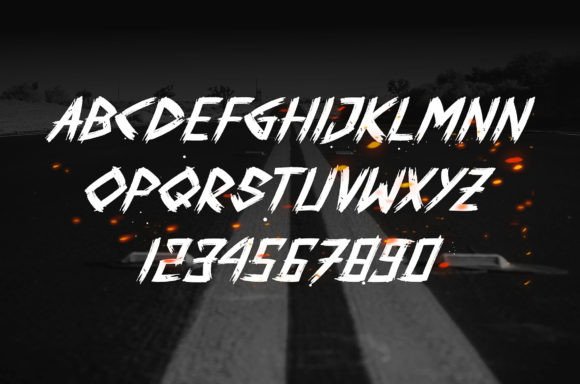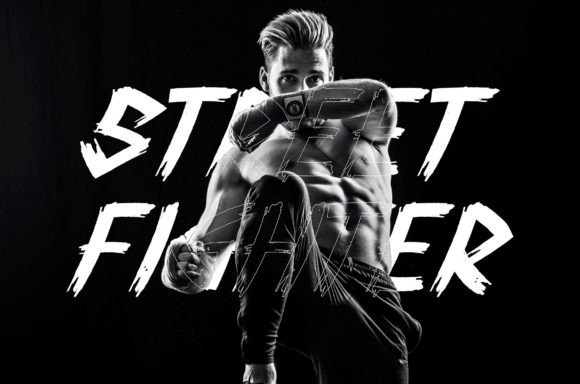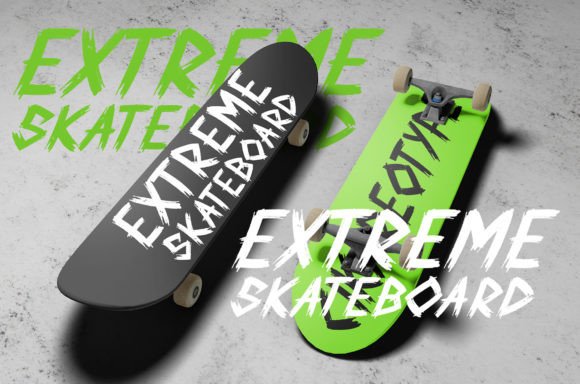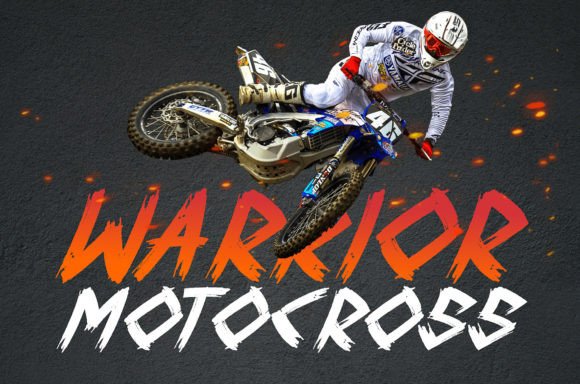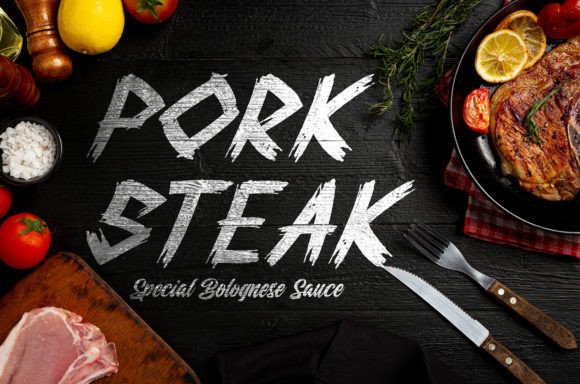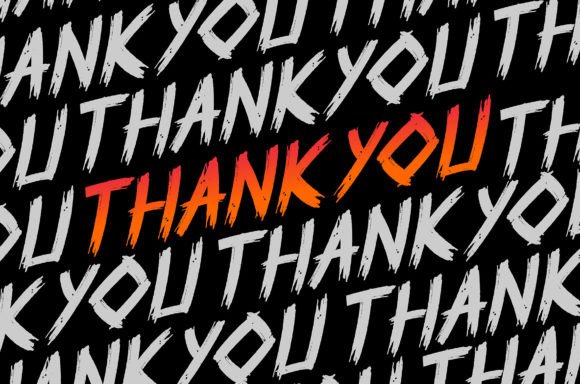
The Perfect Brush Stroke: Elevate Your Designs with the After Brush Font
Do you ever find yourself staring at a blank canvas, waiting for the perfect font to bring your idea to life? We’ve all been there. The struggle is real, especially when trying to convey a sense of creativity and style. That’s where the After Brush Font comes in – a modern and sleek brush display font designed to elevate any creation.
This incredible font is more than just a pretty face; it’s a versatile tool that can be used to convey a wide range of emotions and moods. Whether you’re designing a logo, a brochure, or a social media post, the After Brush Font has the potential to take your design to the next level. Its unique brush strokes and modern aesthetic make it an invaluable addition to any designer’s library.
After Brush Font Key Features
- Unique Characteristics: Hand-drawn, brush-style font with organic, natural feel and subtle texture
Designer Review: After Brush Font
After using the After Brush Font, I have to say it’s a unique addition to any designer’s toolkit. Here’s what I think:
- Character customization: The font allows for a high degree of customization, from weight to ligature options, making it suitable for various design applications.
- Expressive feel: The font’s brush-like characteristics give it a dynamic, expressive feel that’s perfect for creative projects.
- Legibility: Despite its unique style, the font remains legible, making it a great choice for body text or titles.
Limitsations ⚠️
- Size limitations: At larger font sizes, the brush strokes can become pixelated and lose their charm.
- Lack of italics: The font doesn’t have an italic version, which might be a limitation for designers who rely on italics for emphasis.
Overall, I think After Brush Font is a great choice for designers looking for a unique, expressive font. While it has some limitations, its customization options and legibility make it a solid addition to any design arsenal.
Getting the Most Out of After Brush Font
For optimal results, use After Brush Font in combination with a distressed or watercolor effect to create a unique, hand-painted look. Experiment with different font sizes and colors to add depth and visual interest to your design.
After Brush Font is ideal for creating invitations, posters, and other promotional materials with a vintage or handmade feel. It’s also a great choice for adding a touch of whimsy to social media graphics and blog posts.